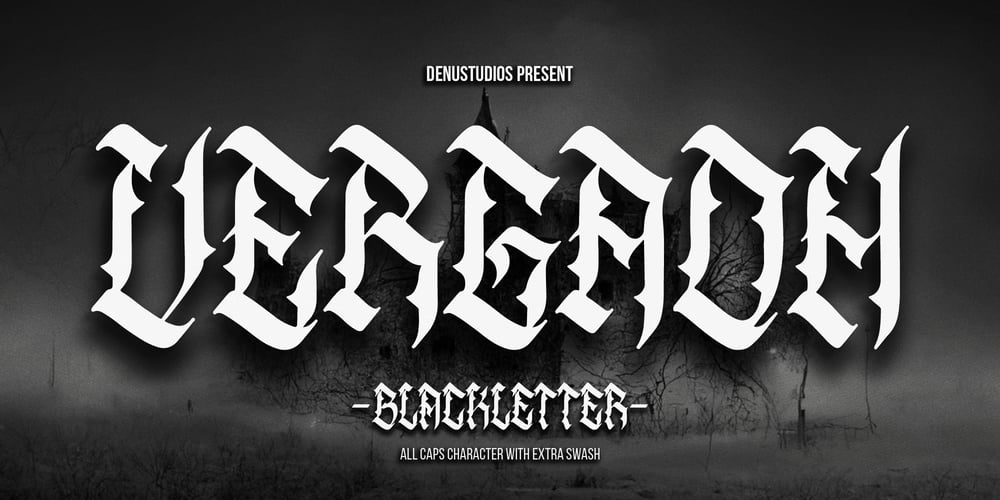
Vergaoh
Vergaoh font
Vergaoh Font Family was designed by Dede Nugraha and published by Denustudio. Vergaoh contains 1 styles and family package options. Vergaoh | All Caps Blackletter Font, from Denustudios, suitable for any projects such as: logos, branding projects, homeware designs, product packaging, mugs, quotes, posters, shopping bags, t-shirts, book covers, name card, invitation cards, greeting cards, label, photography, watermark, special events, and all your other lovely projects that need a All Caps Blackletter Font taste.===========================================================================What’s Included : Regular and Italic Web Font Standard glyphs Alternate and Ligature Works on PC & Mac Simple installations Accessible in the Adobe Illustrator, Adobe Photoshop, Adobe InDesign, even work on Microsoft Word and Other Software. PUA Encoded Characters – Fully accessible without additional design software. Fonts include multilingual support Hope you enjoy with our font!